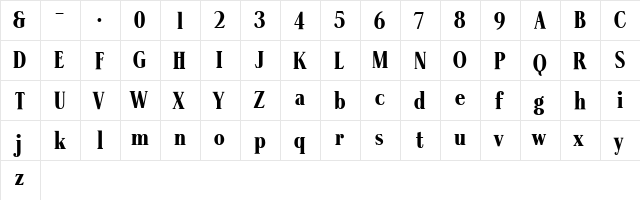
SteppITC-Ultra xPDF Regular Font Preview
SteppITC-Ultra xPDF Regular
SteppITC-Ultra xPDF Regular Font Details
Design Context for SteppITC-Ultra xPDF Typeface
SteppITC-Ultra xPDF offers clean, dependable letterforms without strong stylistic allegiance, making it a practical choice for designers who need flexibility.